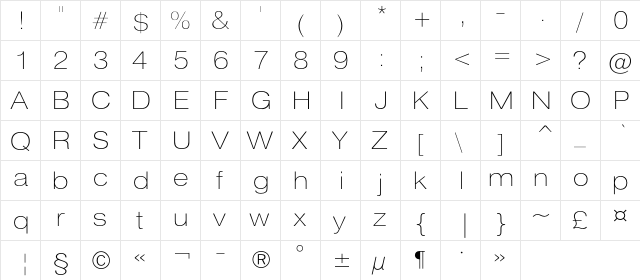
HeliosExtThinC Regular
Design Context for HeliosExtThinC Typeface
HeliosExtThinC takes a measured approach to typography — its balanced proportions and neutral character make it a reliable workhorse for both digital and print work. The delicate stroke weight brings airiness and refinement to layouts.